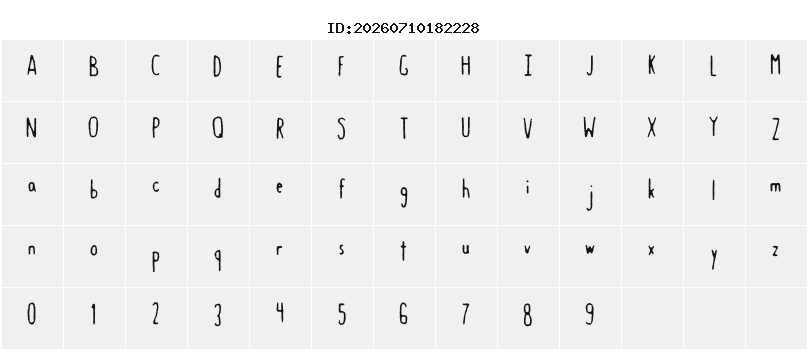
• Font Name: Gastro Intestinal Confluent
• Font ID: Gastro Intestinal Confluent
• Full Font Name: Gastro Intestinal Confluent
• Version: Version 1
• PostScript Name: GastroIntestinalConfluent
• Copyright: © Jan. 2001 Lauren C. Brown
• Designer: Lauren C. Brown
• Manufacturer: Lauren C. Brown
About Gastro Intestinal Confluent.ttf
Gastro Intestinal Confluent.ttf is a modern, elegant sans-serif font designed for ultimate readability and visual harmony. Perfect for branding, headlines, web design, and print materials.